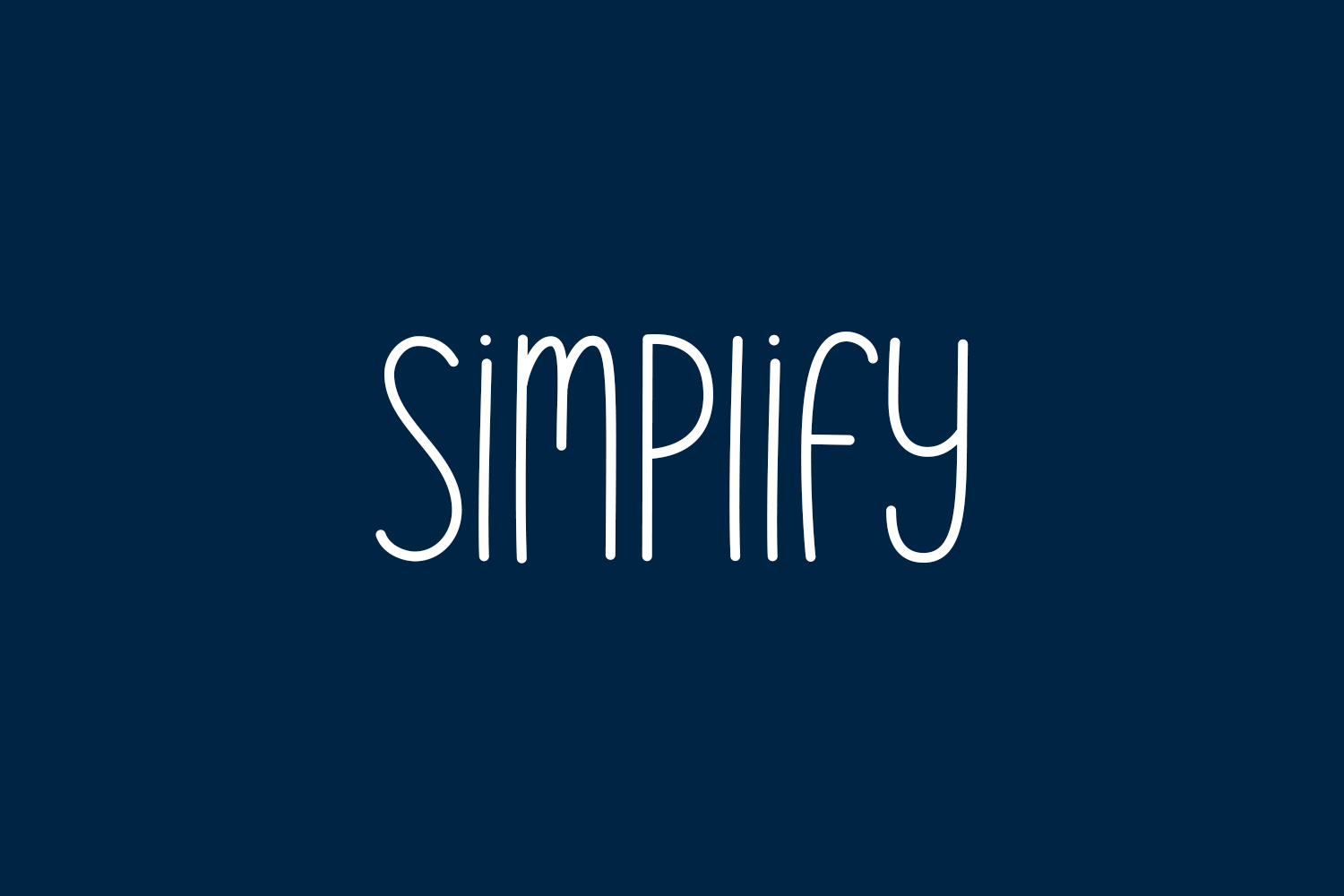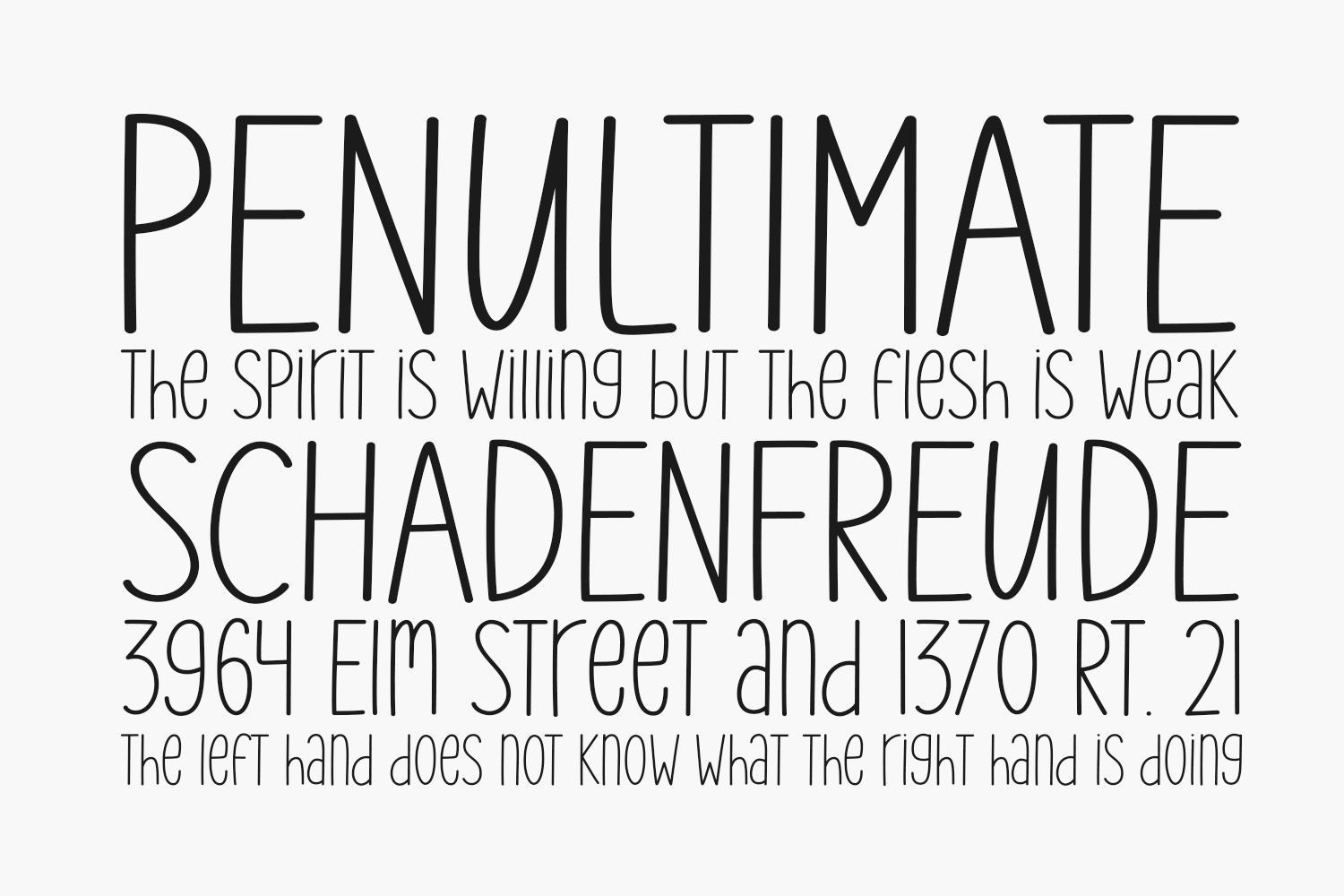
Discover the charm of Simplify Free Font, a delightful handwritten font featuring cute and simple lettering, tailored for chalkboard quotes and teaching materials. Infuse your designs with authenticity and a realistic touch, as this font brings a personal and genuine feel to your creative projects. Simplify Free Font is free for personal use only. Please purchase the full version for commercial use.
Designed by Graphix Line Studio